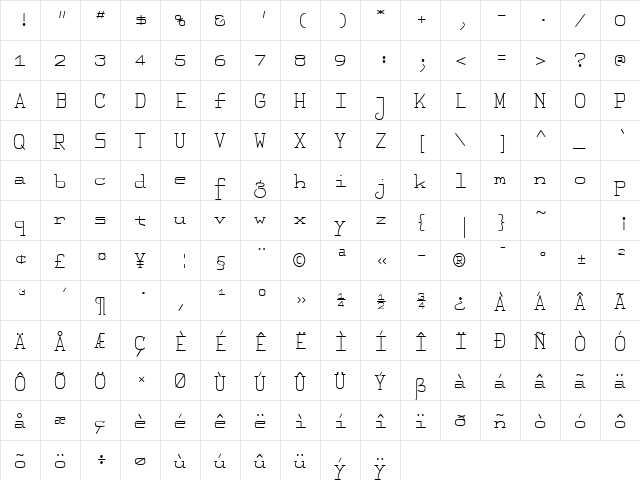
FeggoliteMono Plain
Design Context for FeggoliteMono Typeface
FeggoliteMono uses fixed-width spacing throughout, giving it the structured, systematic character associated with coding environments and technical documentation.
Pro Tip: Use FeggoliteMono with slightly increased line-height for extended reading — fixed-width spacing can feel dense in longer passages without extra breathing room.